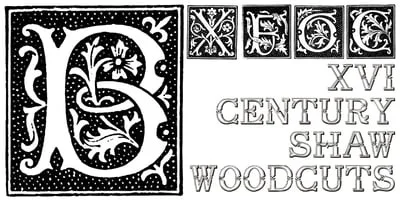
XVI Century Shaw Woodcuts Font
XVI Century Shaw Woodcuts Font is perfect for medieval manuscript reproductions, Renaissance festival materials, historical document recreations, vintage book cover designs, antique craft branding, heritage museum displays, period theater productions, classical literature publications, artisan printmaking projects, and authentic historical educational materials.
What makes XVI Century Shaw Woodcuts Font so exciting is its extraordinary ability to transport readers back to the golden age of Renaissance craftsmanship through authentically carved letterforms that seem chiseled directly from the workshops of master woodcut artists who dedicated their lives to preserving knowledge through the painstaking art of hand-carved typography. This font embodies the essence of medieval artistry and scholarly tradition, featuring meticulously detailed characters that appear carved by skilled craftsmen using traditional woodworking tools and centuries-old techniques passed down through generations of master printers. The historically accurate letter shapes create an atmosphere of scholarly reverence and artistic dedication, making every word feel like it belongs in illuminated manuscripts and carries the weight of Renaissance wisdom and cultural sophistication.
The XVI Century Shaw Woodcuts Font family includes Regular, Bold, Ornamental, and Distressed variations, along with period-appropriate decorative elements and medieval symbols. Each style maintains the font's distinctive Renaissance character while offering versatility for different historical applications, from delicate manuscript text to commanding chapter headlines that celebrate the enduring legacy of Renaissance printing and scholarly achievement.
This magnificent typeface brings authentic Renaissance aesthetics to contemporary design projects. The XVI Century Shaw Woodcuts Font offers designers an invaluable resource for creating memorable brand identities that communicate heritage, craftsmanship, and historical authenticity. Whether you're developing historical institution branding, designing period-appropriate educational materials, or creating Renaissance-inspired cultural communications, this font delivers unmatched historical credibility and artisanal appeal.
The masterfully crafted letterforms in XVI Century Shaw Woodcuts Font feature intricate carved details and authentic aging effects that mirror the precise handiwork of Renaissance woodcut masters and the natural patina that develops on centuries-old printing blocks. Each character has been designed to maintain perfect readability while expressing the patient dedication and artistic excellence that defined the golden age of European printing and scholarship. The font's distinctive personality makes it ideal for applications requiring genuine historical authority and Renaissance authenticity.
Cultural heritage professionals appreciate how XVI Century Shaw Woodcuts Font effortlessly communicates historical accuracy, artistic craftsmanship, and scholarly tradition while connecting modern audiences with the rich cultural legacy of Renaissance printing and the master artisans who revolutionized human communication. The comprehensive character set includes medieval symbols, Renaissance ornaments, historical decorations, and extensive language support, ensuring global compatibility while preserving its distinctive woodcut identity. This makes it an invaluable resource for museums, historical societies, educational institutions, and any organization seeking typography that embodies the timeless values of scholarly excellence, artistic craftsmanship, and the profound cultural achievement of Renaissance printing masters who understood that preserving knowledge required not just intellectual rigor, but also the kind of artistic dedication that transforms functional typography into enduring works of art that continue to inspire reverence for learning and appreciation for the skilled craftsmen who made the spread of human knowledge possible.